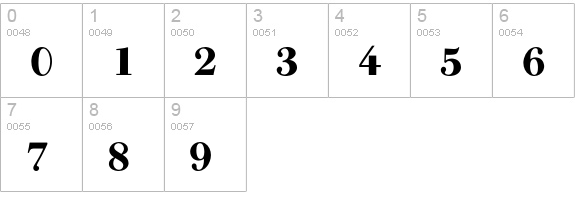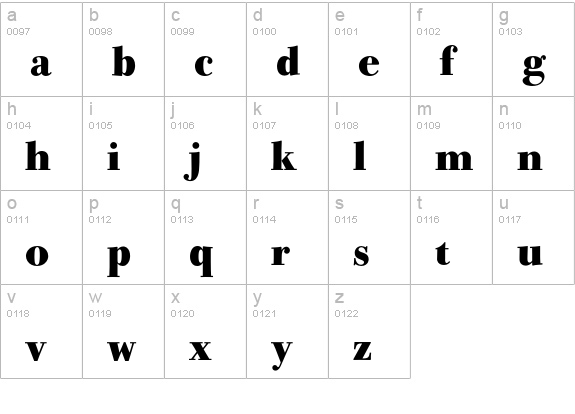
Bodoni Old Face Bold Font Details
Bodoni Old Face Bold is a strong, high-contrast variant in the Bodoni typeface family \xE2\x80\x94 well suited to headlines, attention-grabbing titles, and strong calls-to-action.
Bodoni Old Face Bold font is a timeless and elegant typeface that exudes sophistication and class. Its bold weight commands attention and makes a strong statement in any design project. The sharp serifs and clean lines of Bodoni Old Face Bold give it a modern yet classic look that is perfect for luxury brands, editorial layouts, and high-end marketing materials. What sets Bodoni Old Face Bold font apart is not only its striking design but also the fact that it is available for free download at FontsMarket.com. This means that designers and creatives can easily access this premium font without any cost, making it a valuable asset for any project. Whether you're looking to add a touch of refinement to your branding or elevate the typography in your designs, Bodoni Old Face Bold font is a versatile and stylish choice that is sure to make a lasting impression. Download it for free today at FontsMarket.com and take your designs to the next level.